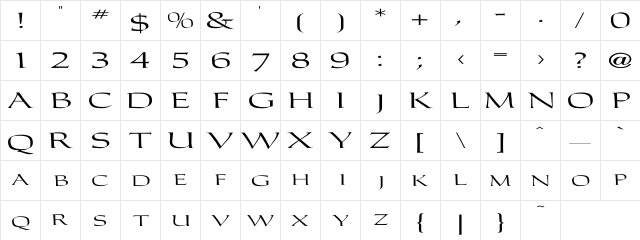
CarolusRomanFont Ex Regular
Design Context for CarolusRomanFont Ex Typeface
CarolusRomanFont Ex takes a measured approach to typography — its balanced proportions and neutral character make it a reliable workhorse for both digital and print work.